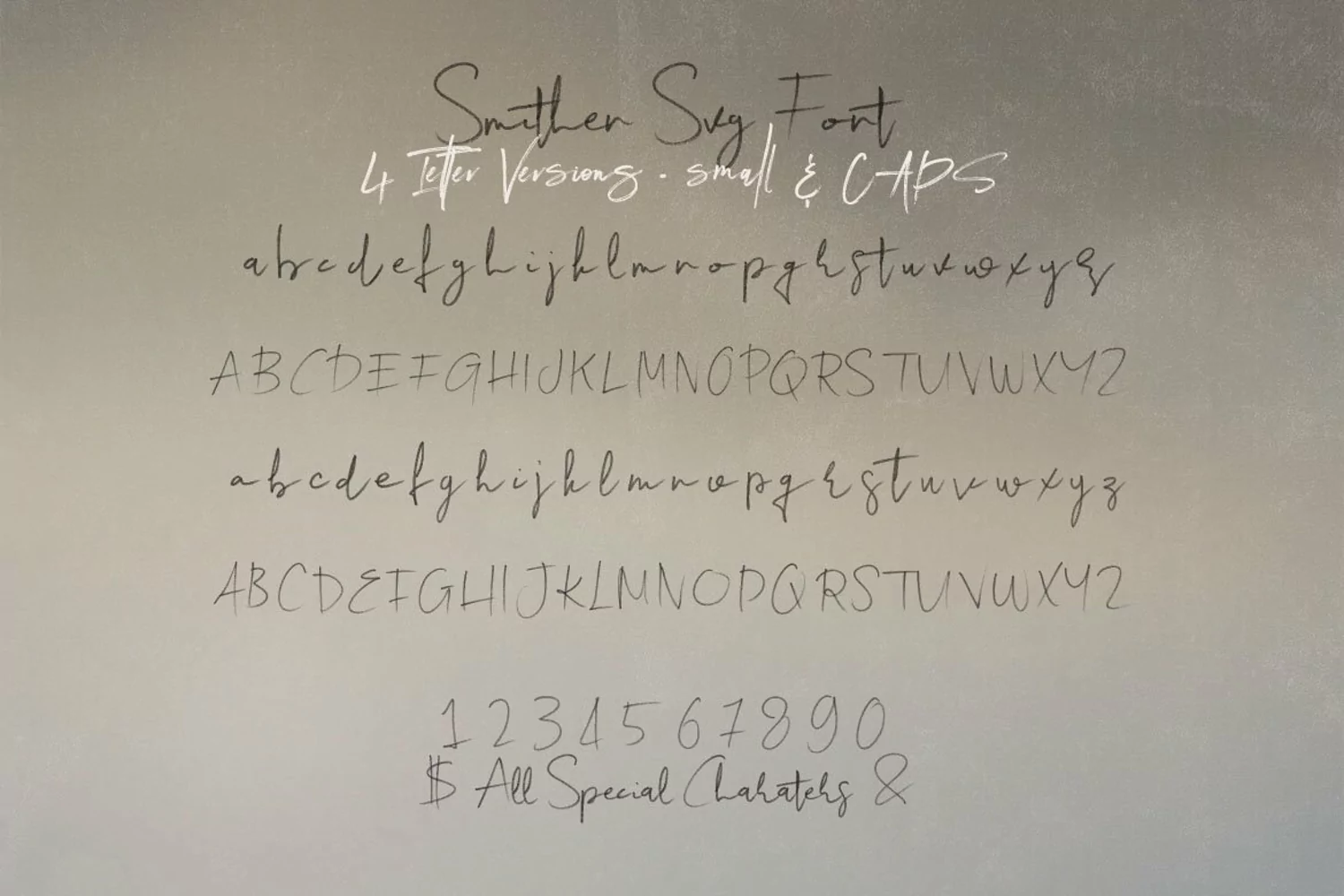
Smithen SVG Script Font example image 1
Smithen SVG Script Font
Marker, brush or grunge style script font for your new projects. Great for grunge or artistic projects!